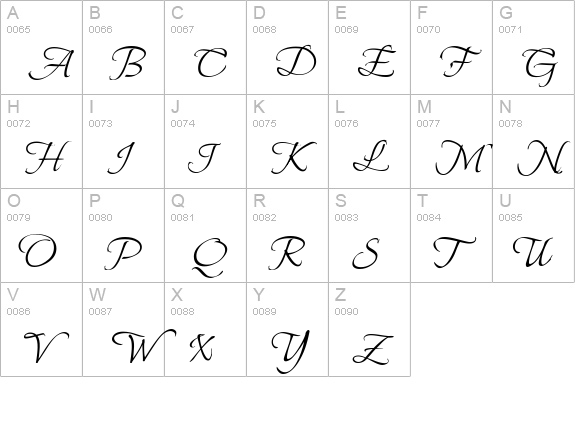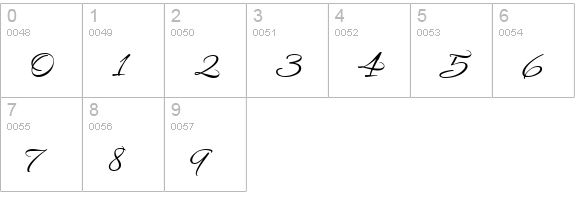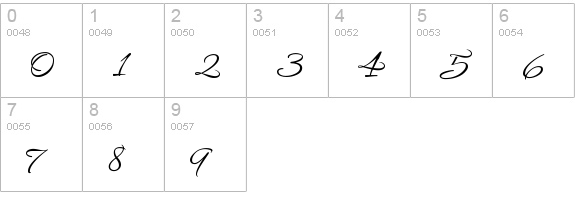
SnagglePuss Font Details
Introducing SnagglePuss, a captivating and whimsical font that is sure to add a touch of playfulness to any project. With its unique and quirky letterforms, SnagglePuss captures the essence of fun and adventure, making it the perfect choice for children's books, greeting cards, posters, and more. This delightful font is not only visually appealing, but it also offers incredible versatility. Whether you're aiming for a cheerful and lighthearted design or a bold and attention-grabbing headline, SnagglePuss has got you covered. Its distinct character shapes and carefully crafted curves make each letter stand out, ensuring that your message will be delivered with style and flair. But what truly sets SnagglePuss apart is not just its charm and versatility, but also the fact that it is available for free! That's right, you can freely download SnagglePuss at FontsMarket.com, making it accessible to designers, students, and enthusiasts alike. Say goodbye to expensive font licenses and hello to endless creative possibilities, all within your reach. Whether you're a seasoned professional or just starting out on your design journey, SnagglePuss is the perfect addition to your font collection. Its playful nature will inspire your creativity and inject a sense of joy into your designs. So why wait? Download SnagglePuss for free at FontsMarket.com today and let your imagination run wild!